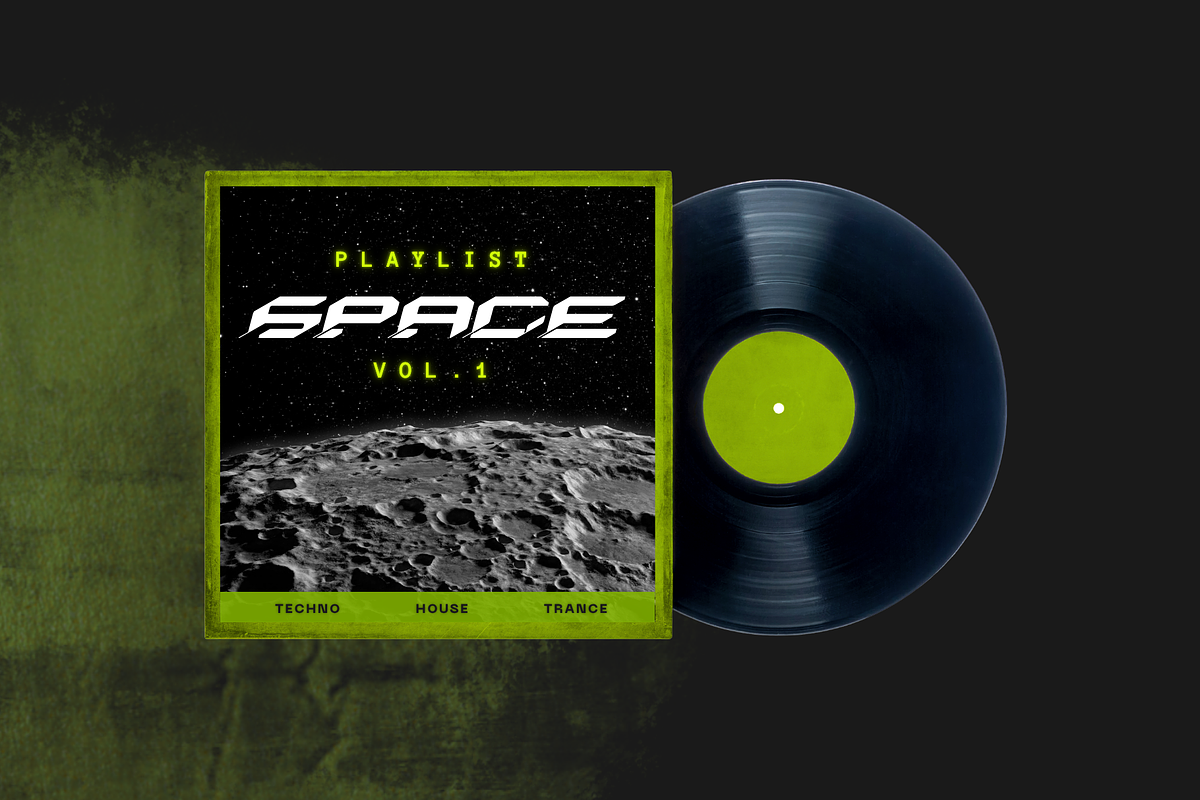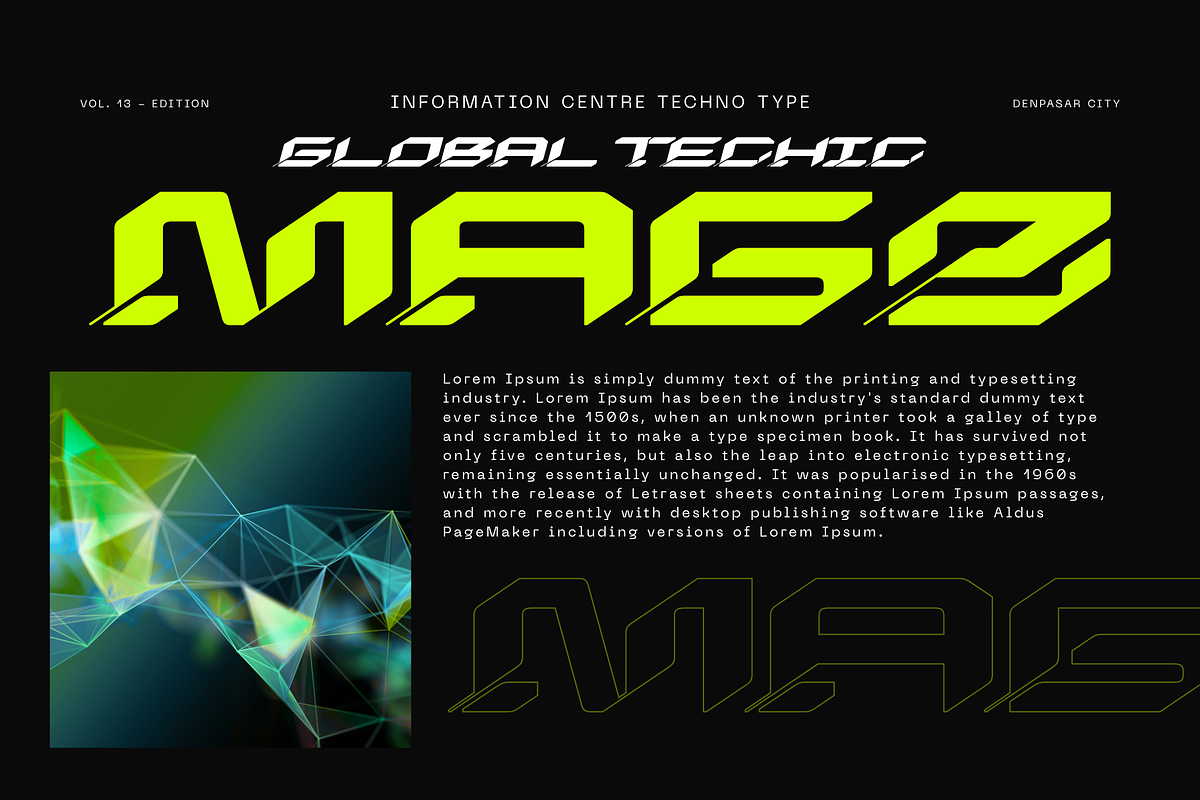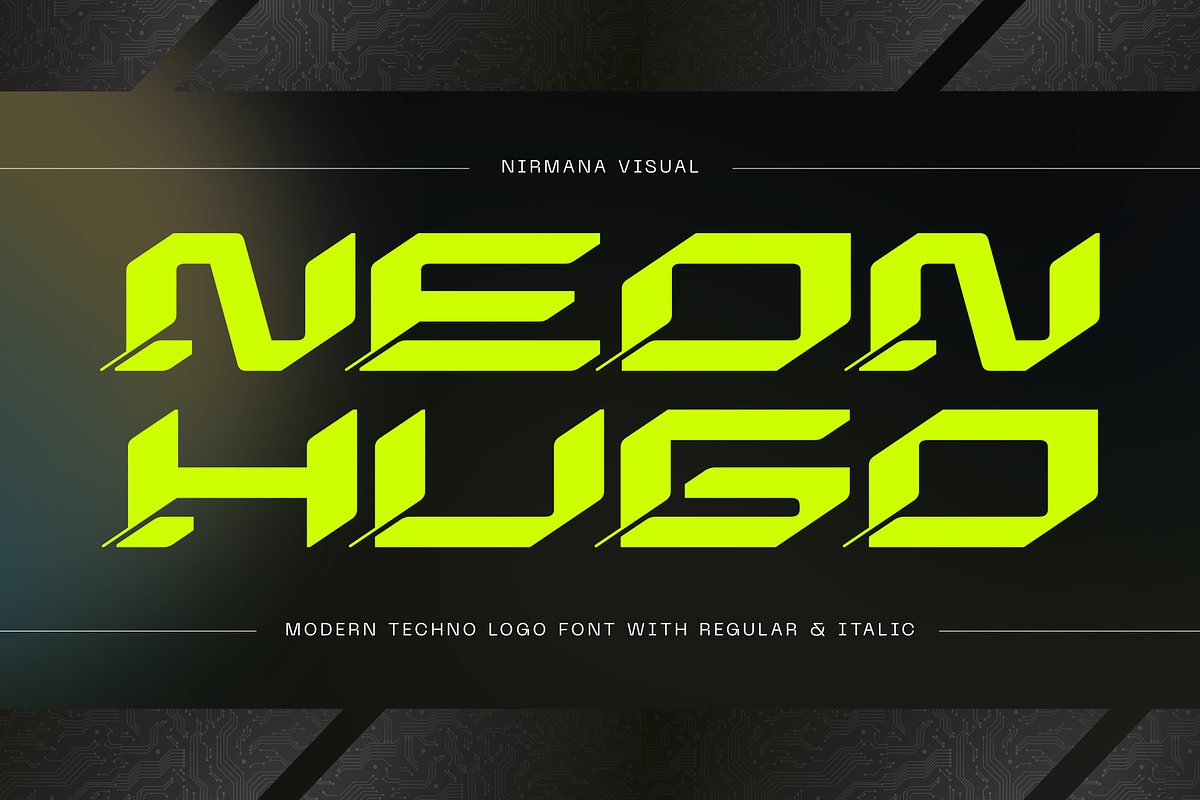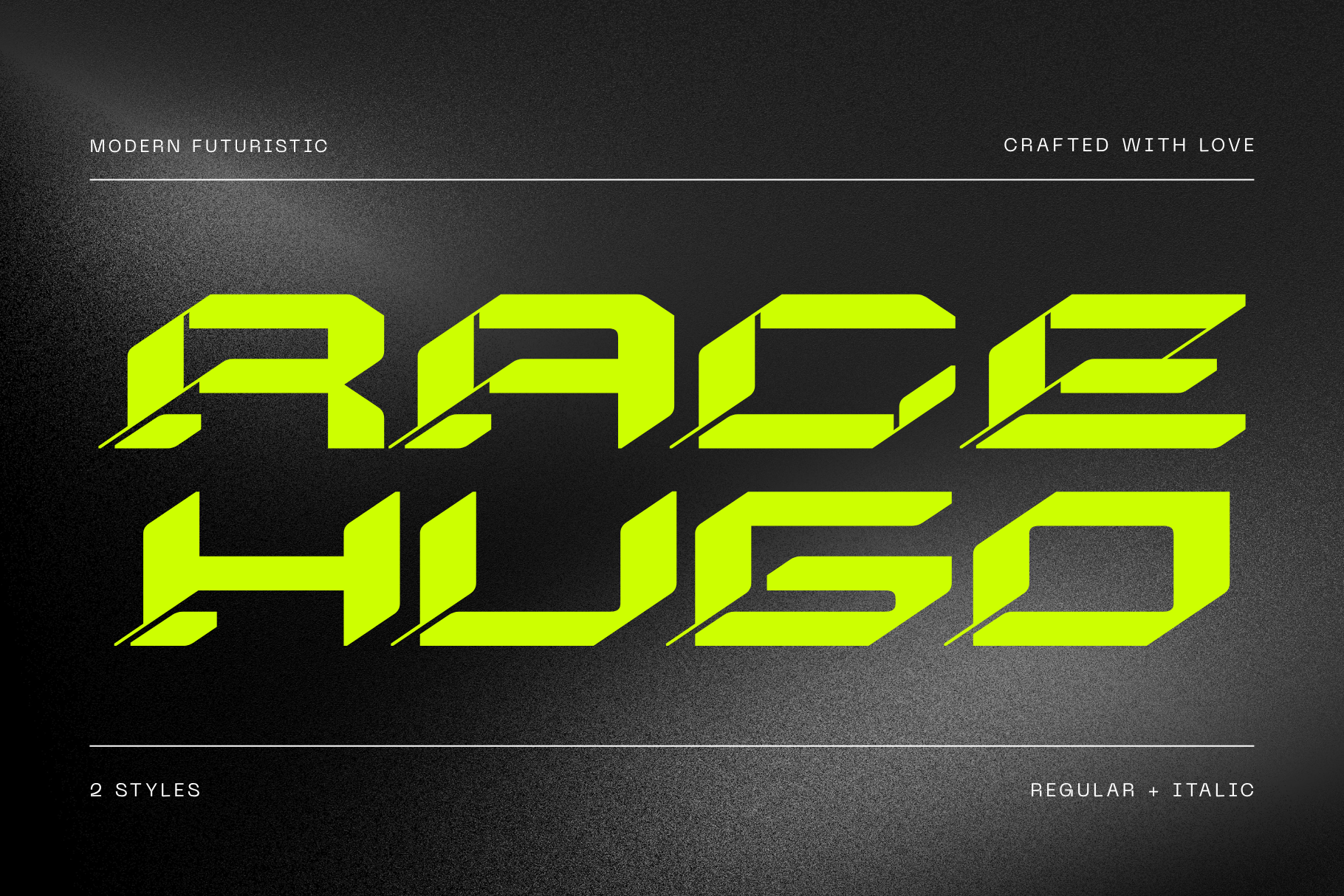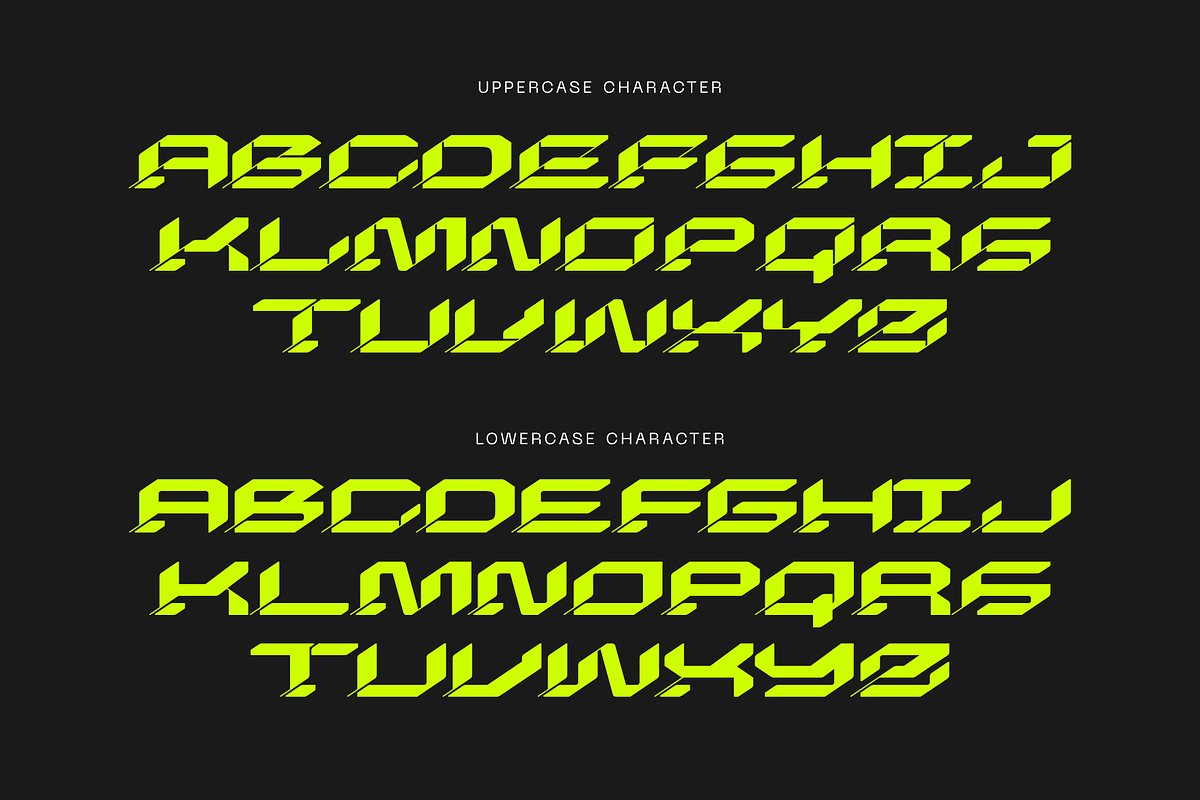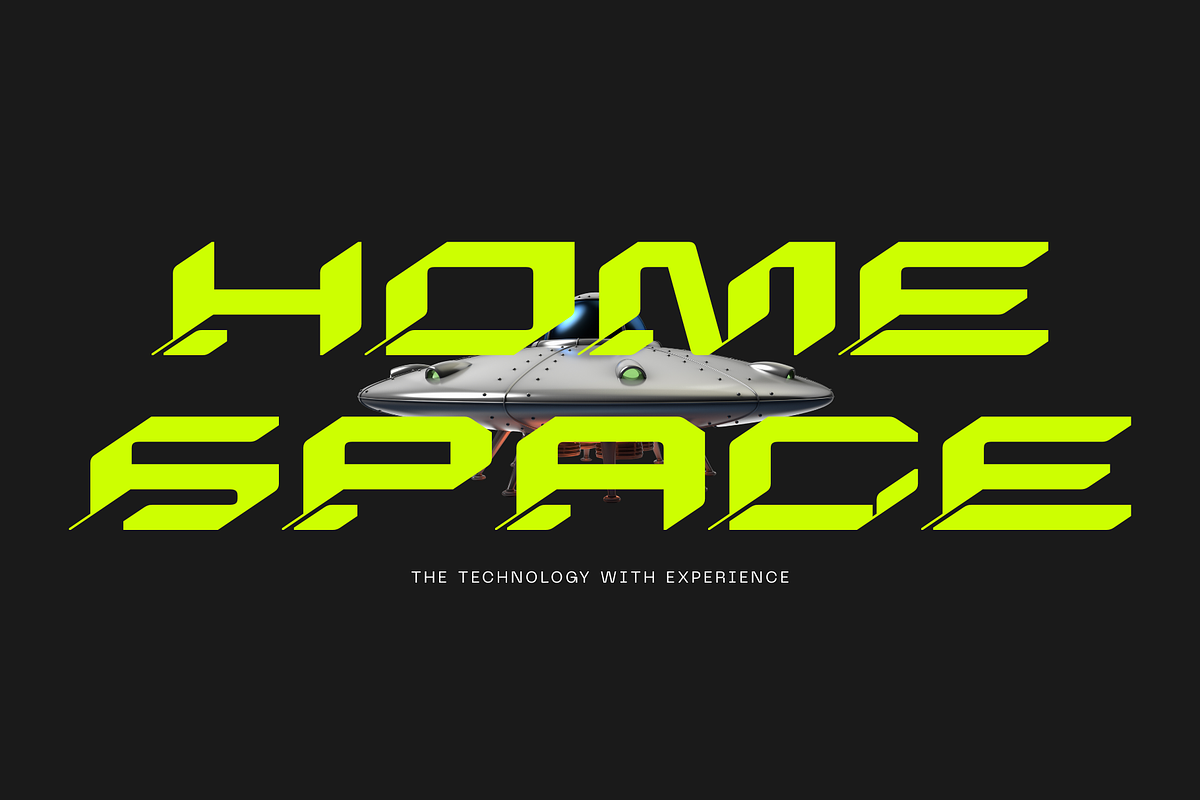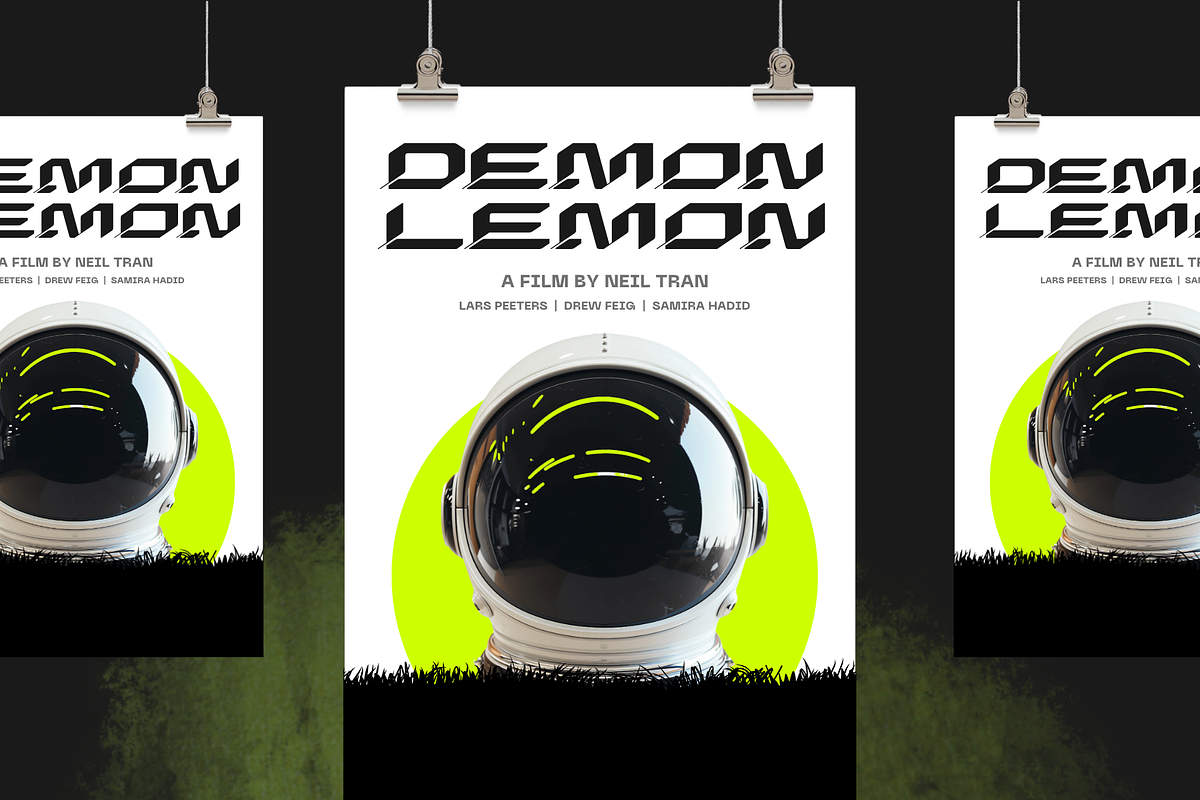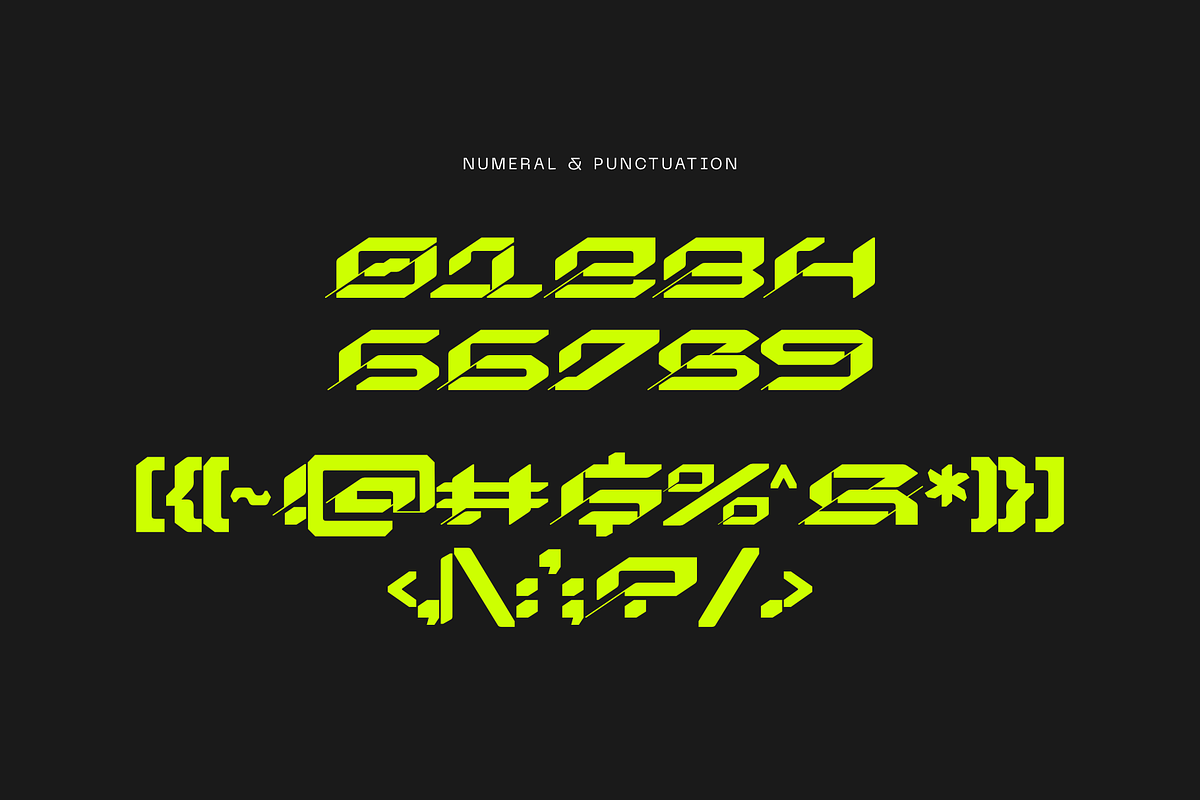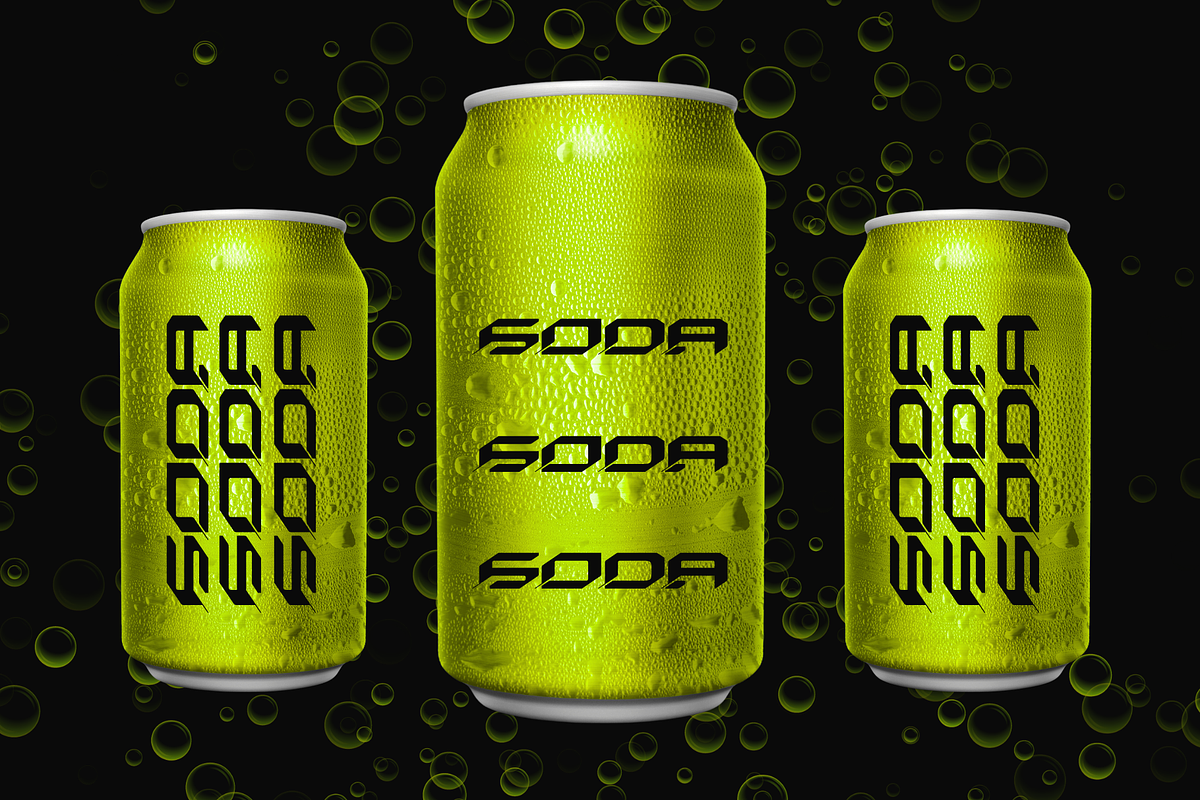
Race Hugo - Branding Logo Font
Race Hugo offers beautiful typographic harmony for a diversity of design projects, including logos & branding, social media posts, advertisements & product designs.